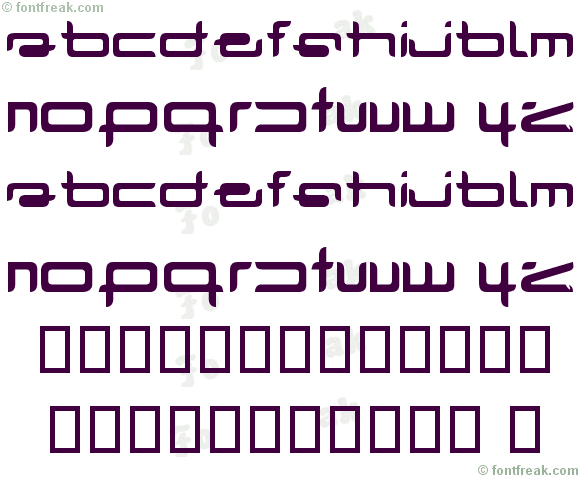
radar
The Radar font, created by German Olaya in 1999, is a captivating display typeface that exudes a modern and dynamic aesthetic. This distinctive font is categorized as a sans-serif, characterized by its clean lines and geometric forms. The stroke weight is consistent throughout, providing a bold and assertive presence, while the spacing is balanced, ensuring readability without sacrificing style. The design incorporates subtle decorative elements that add uniqueness, making it an excellent choice for projects requiring a contemporary flair.
This versatile font is ideal for a variety of applications. Its striking appearance makes it particularly suitable for movie posters, where attention-grabbing typography is essential. Additionally, the Radar font works well for branding purposes, particularly for tech startups and creative agencies that wish to convey innovation and forward-thinking. It can also enhance restaurant menus, especially those aiming for a modern, upscale look, and is perfect for event promotions or flyers that require a bold statement. Graphic designers, small business owners, and content creators will find this font invaluable in their toolkit, as it effortlessly communicates a sense of style and modernity.
What sets the Radar font apart is its ability to blend functionality with artistic expression. The combination of clean lines and bold design elements allows it to stand out in various contexts, making it adaptable for both print and digital media. With its freeware license, users can easily access the radar font free download, allowing creativity to flourish without financial constraints. Whether you’re designing a logo, a brochure, or social media graphics, the Radar font provides the perfect balance of sophistication and contemporary design, ensuring your projects capture attention and leave a lasting impression.